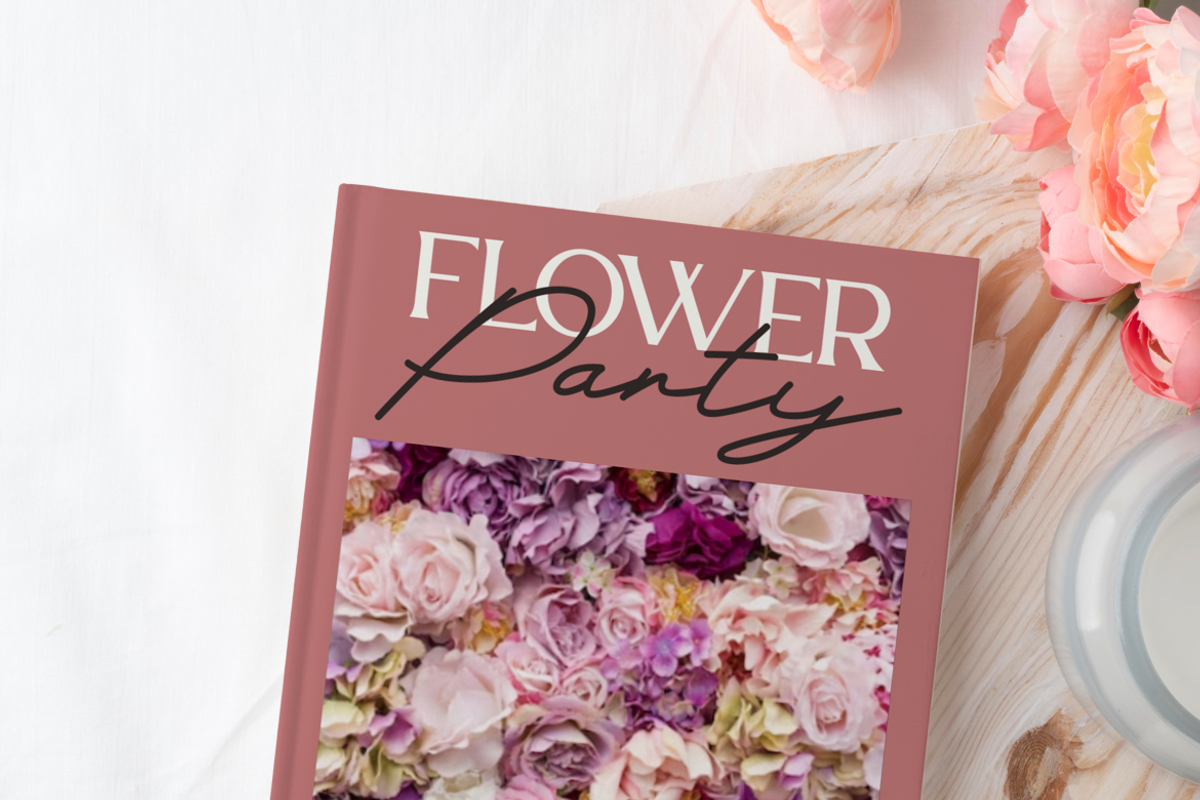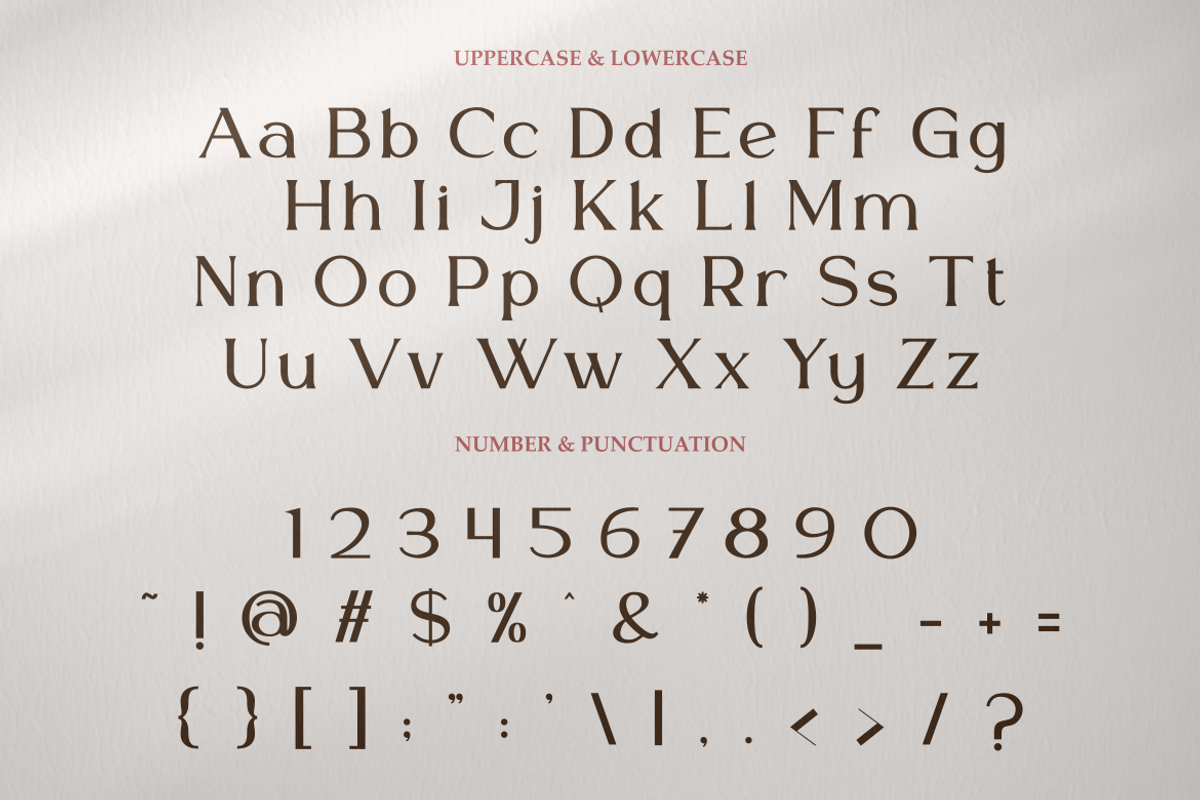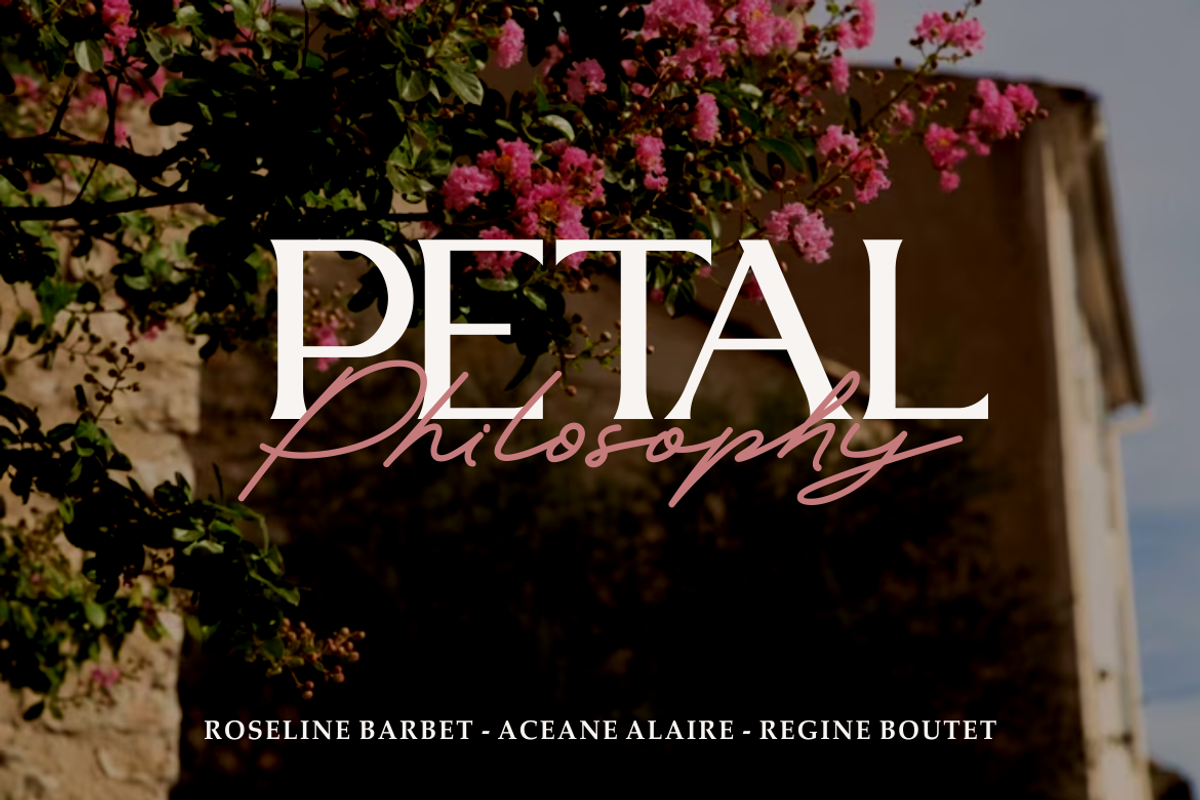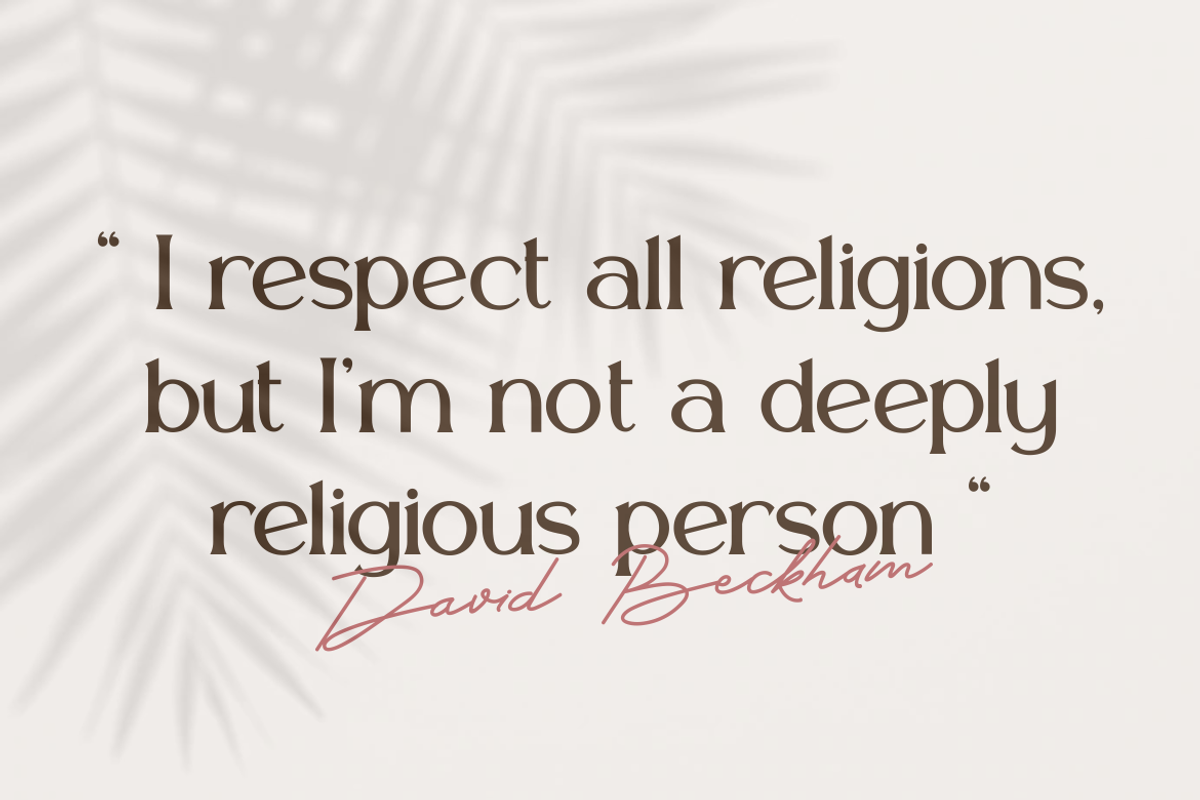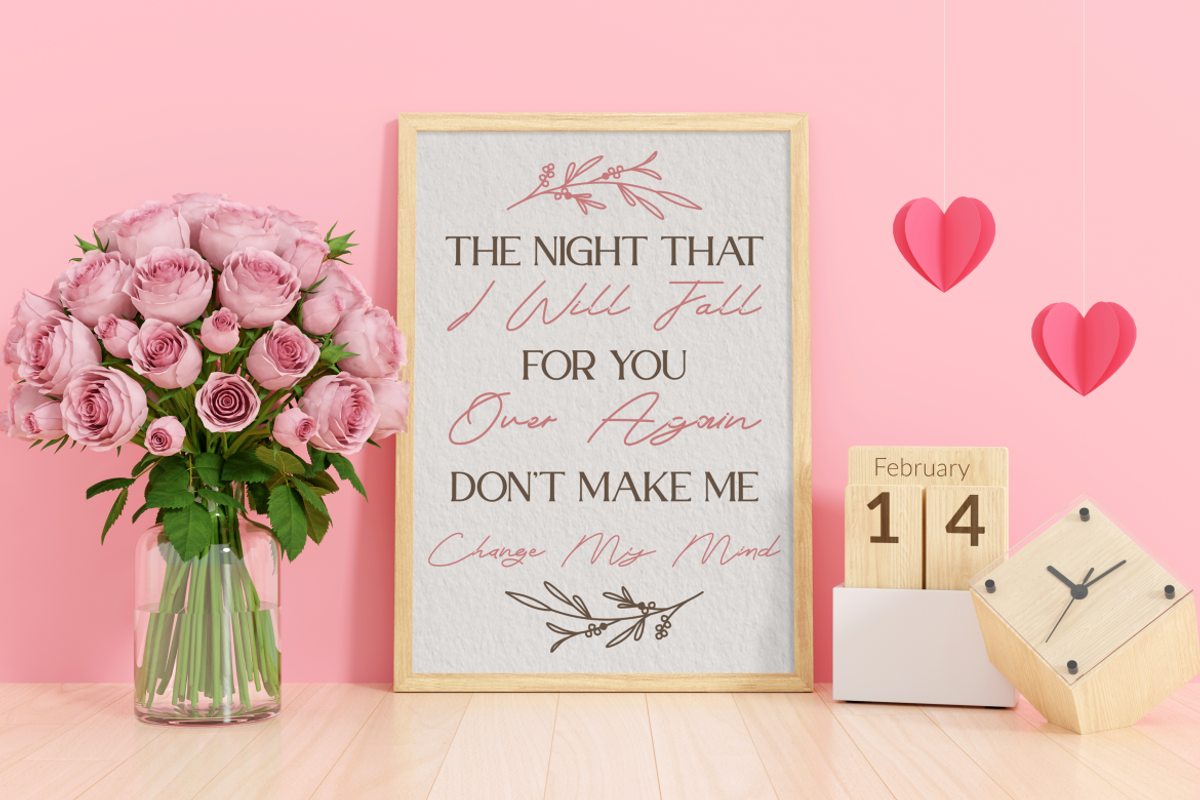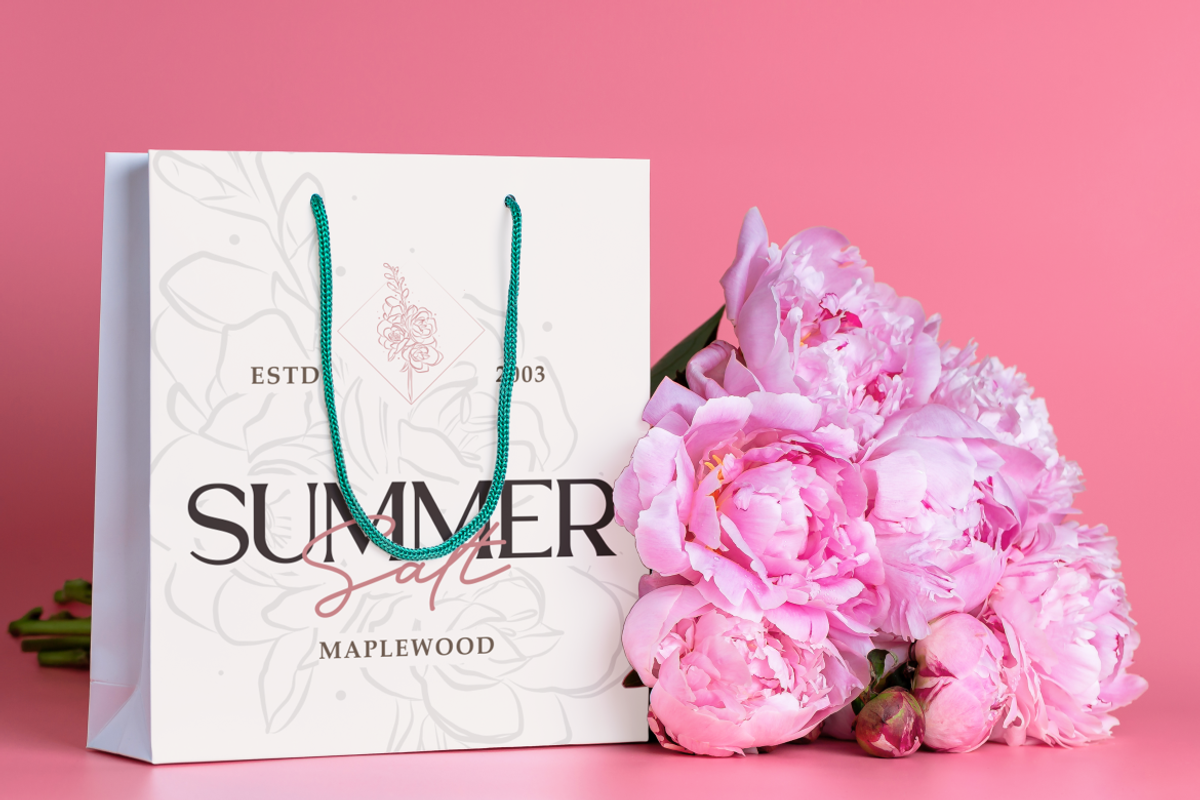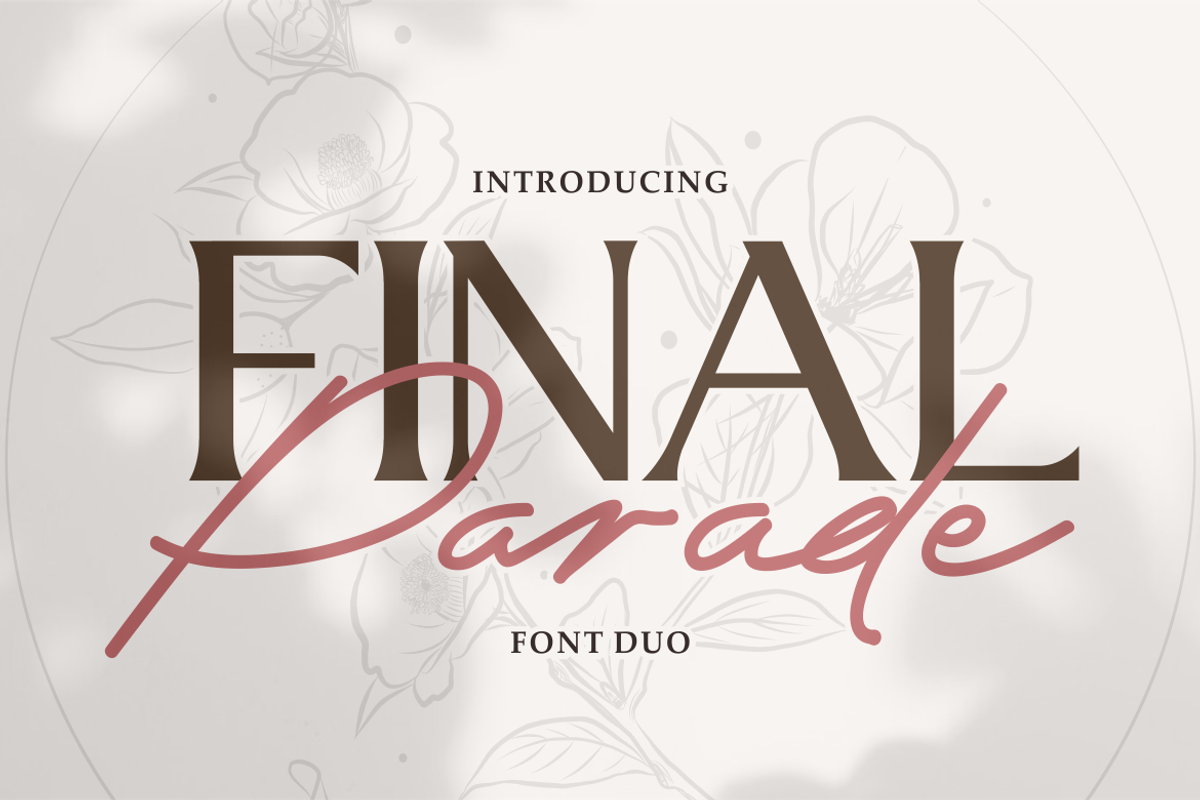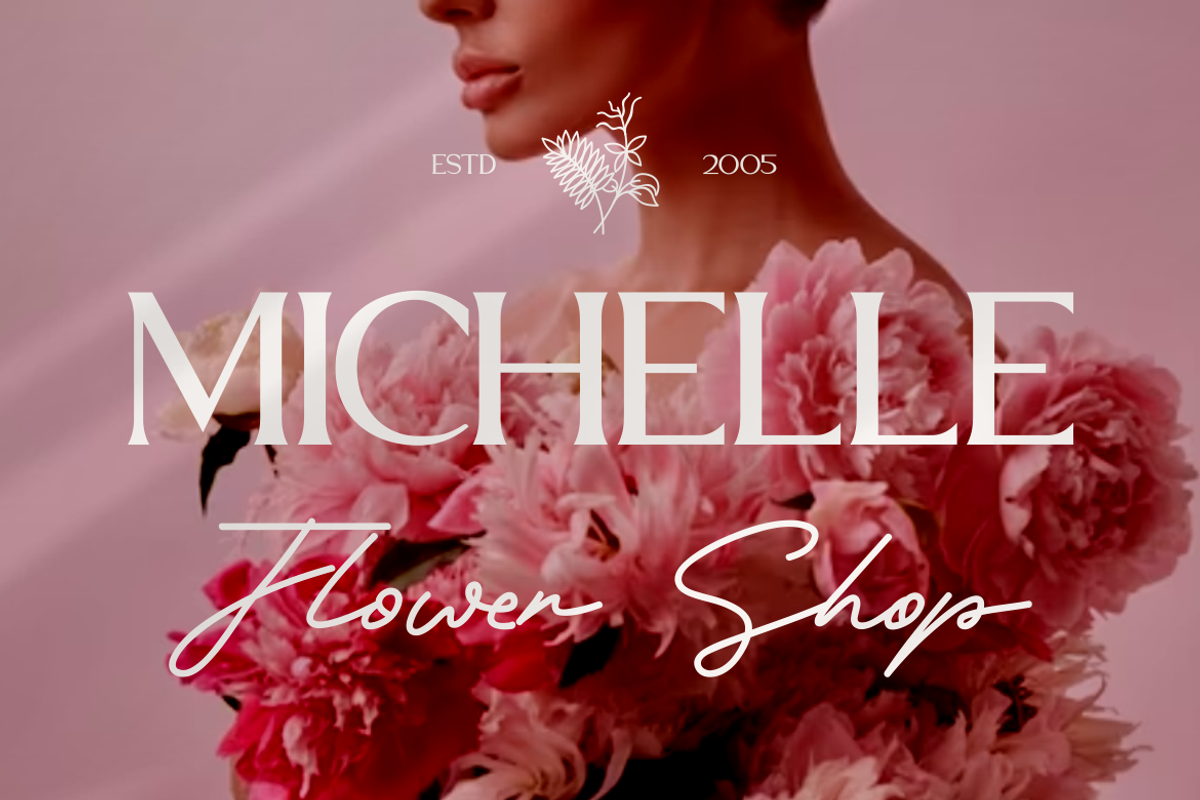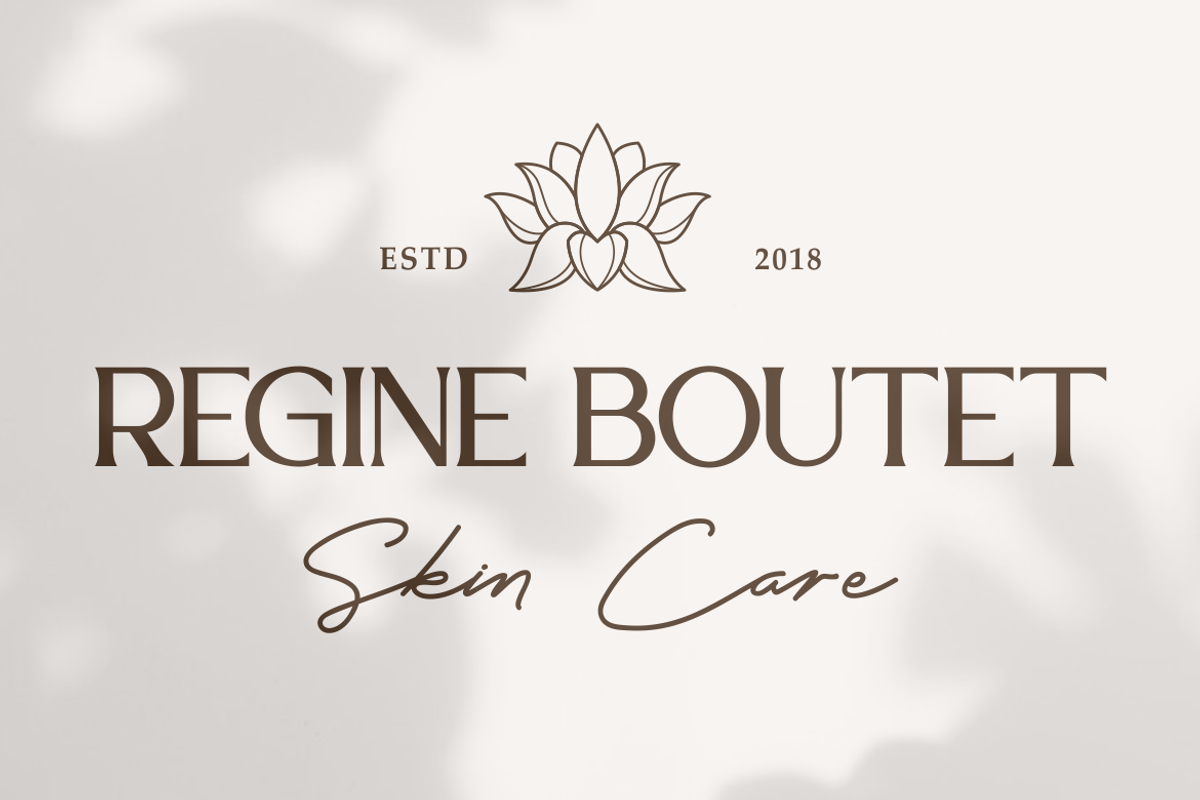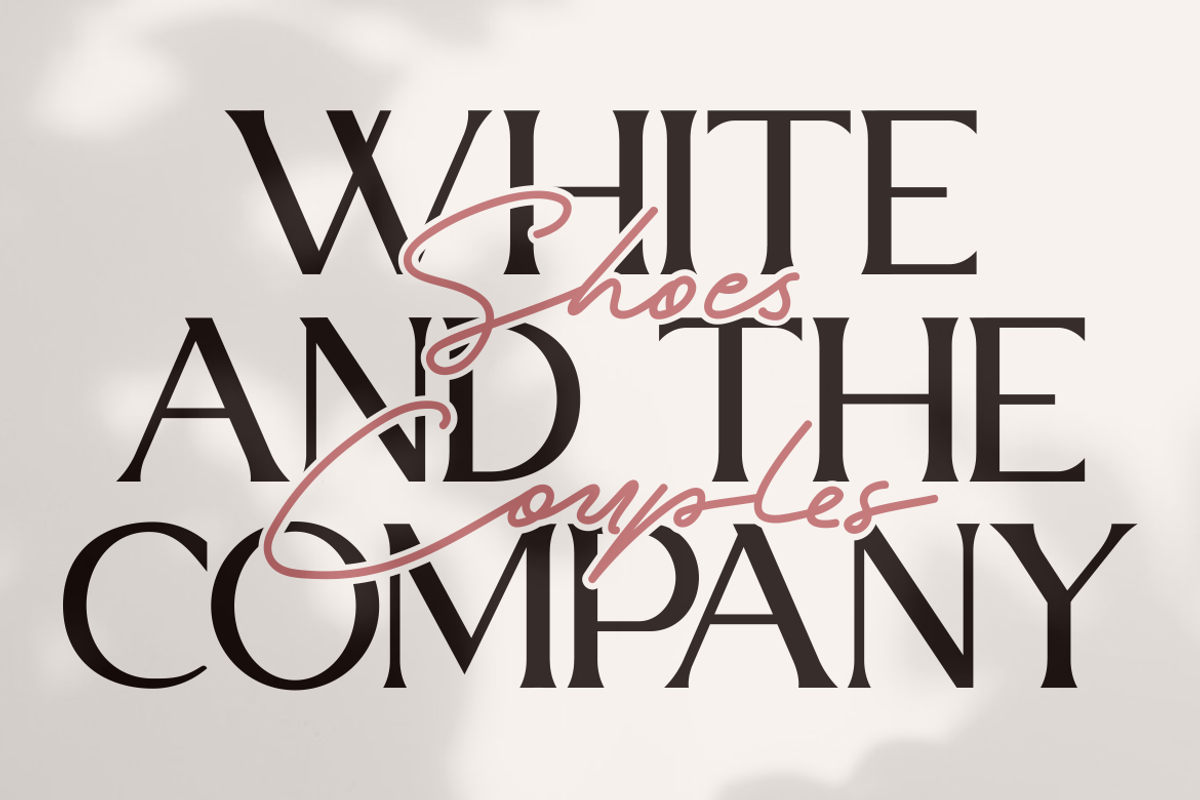
Final Parade – Luxury And Elegant Fo
The Final Parade - Luxury And Elegant Font Duo is a harmonious combination of two fonts that complement each other beautifully. The first font is a luxurious serif font with strong and commanding characters, while the second font is an elegant signature font with long swashes at the end of each letter, adding an extra touch of sophistication. These fonts can be used individually for distinct purposes or together as a duo, offering versatility for various design needs. Ideal for quotes, logos, product packaging, business names, wedding materials, invitations, greeting cards, posters, and magazines, this font duo adds a touch of luxury and elegance to any project.